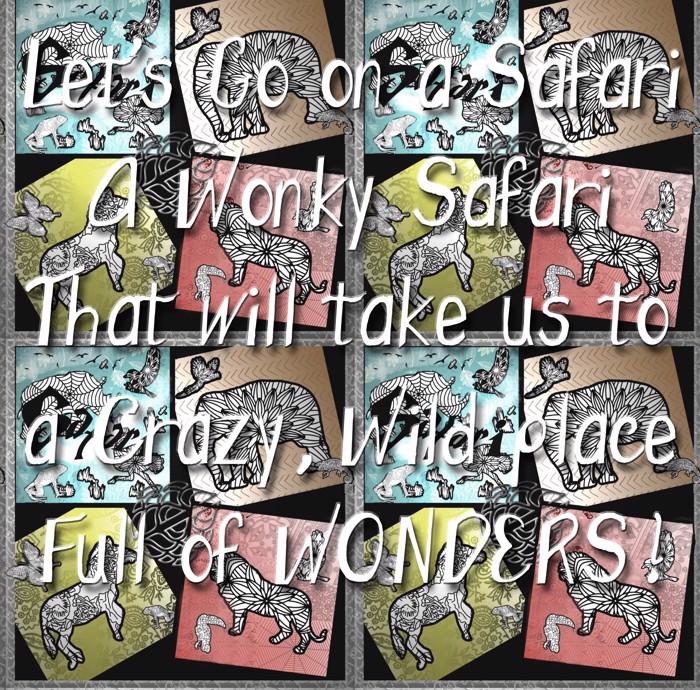
Wonky Street Font
Wonky Printed is a quirky casual handwriting font in printing rather than cursive. Wonky Street is just a fun hand-printed font. It is designed for casual communications. Wonky Street Italics is a true italics font, with the glyphs adjusted to look better as italics.